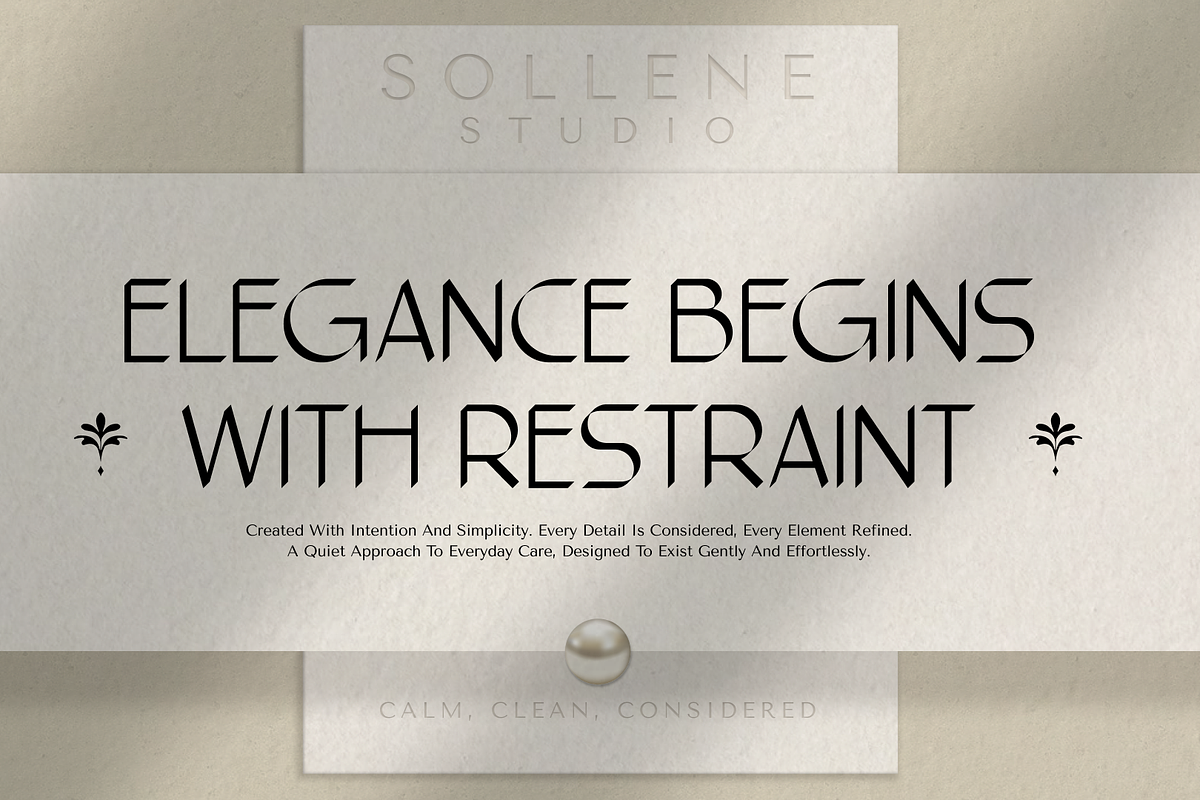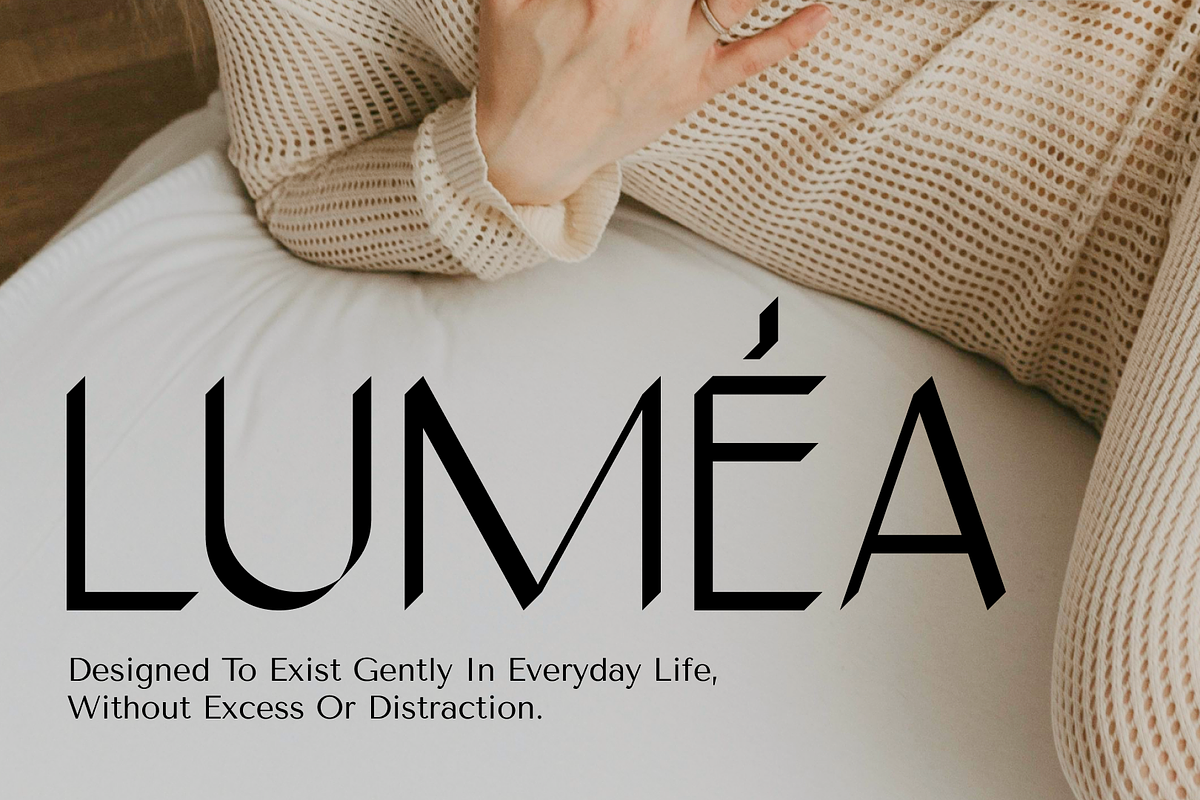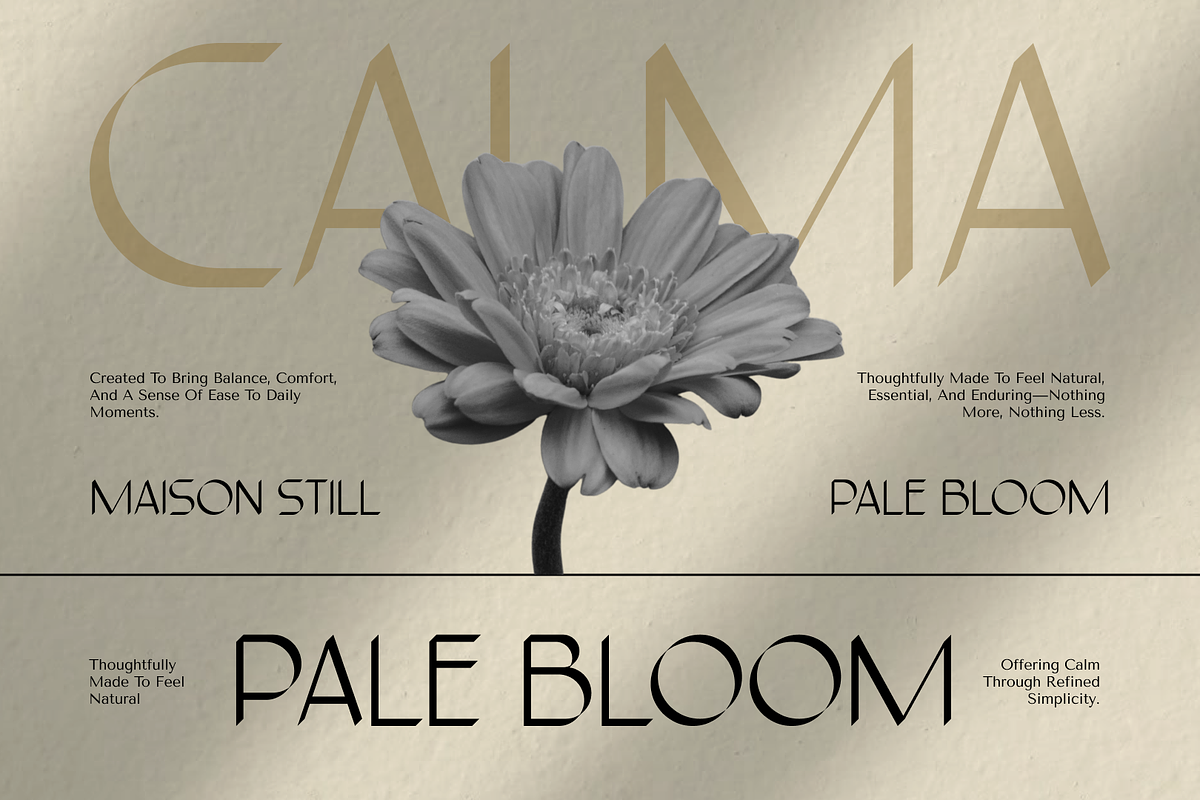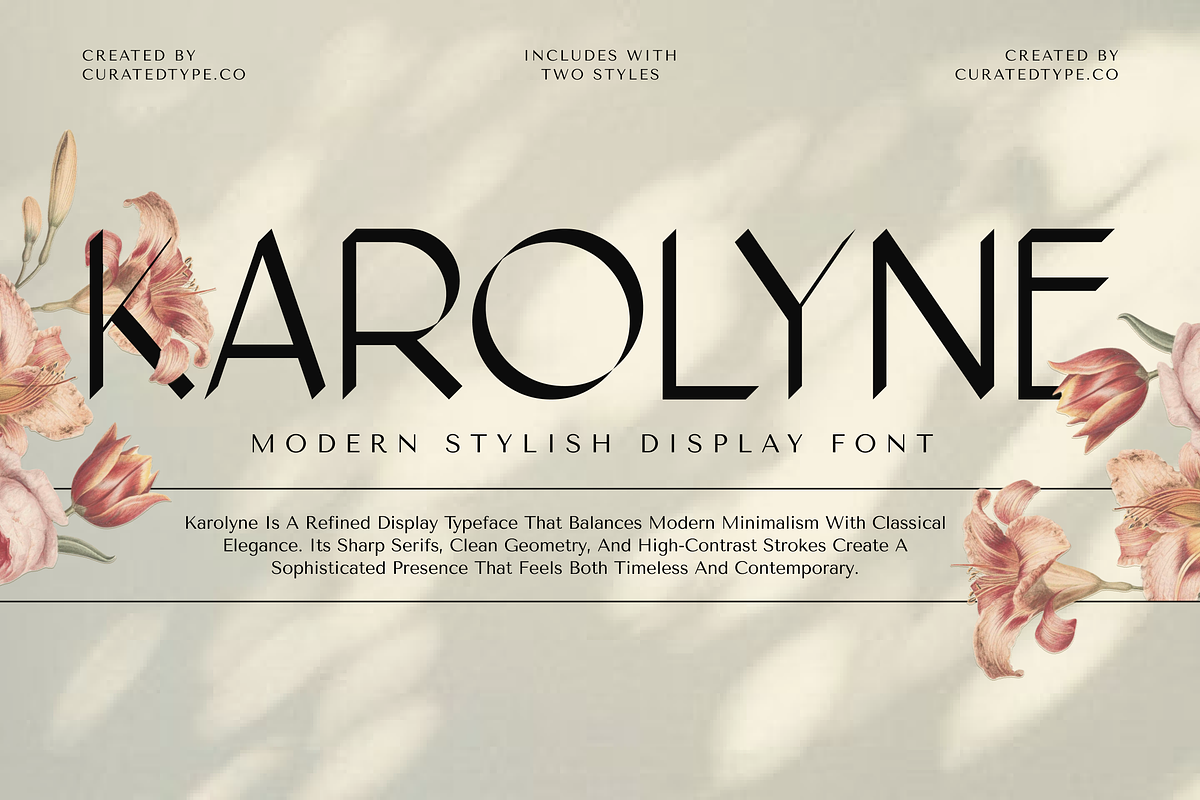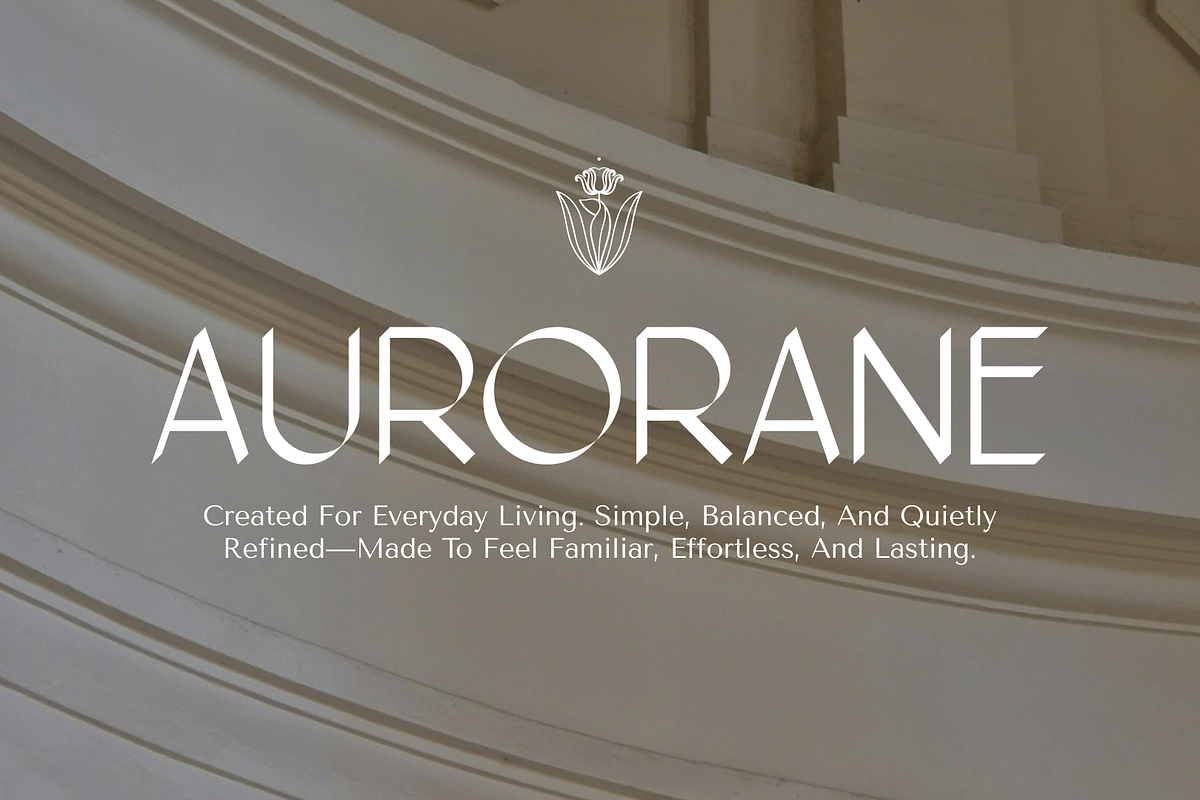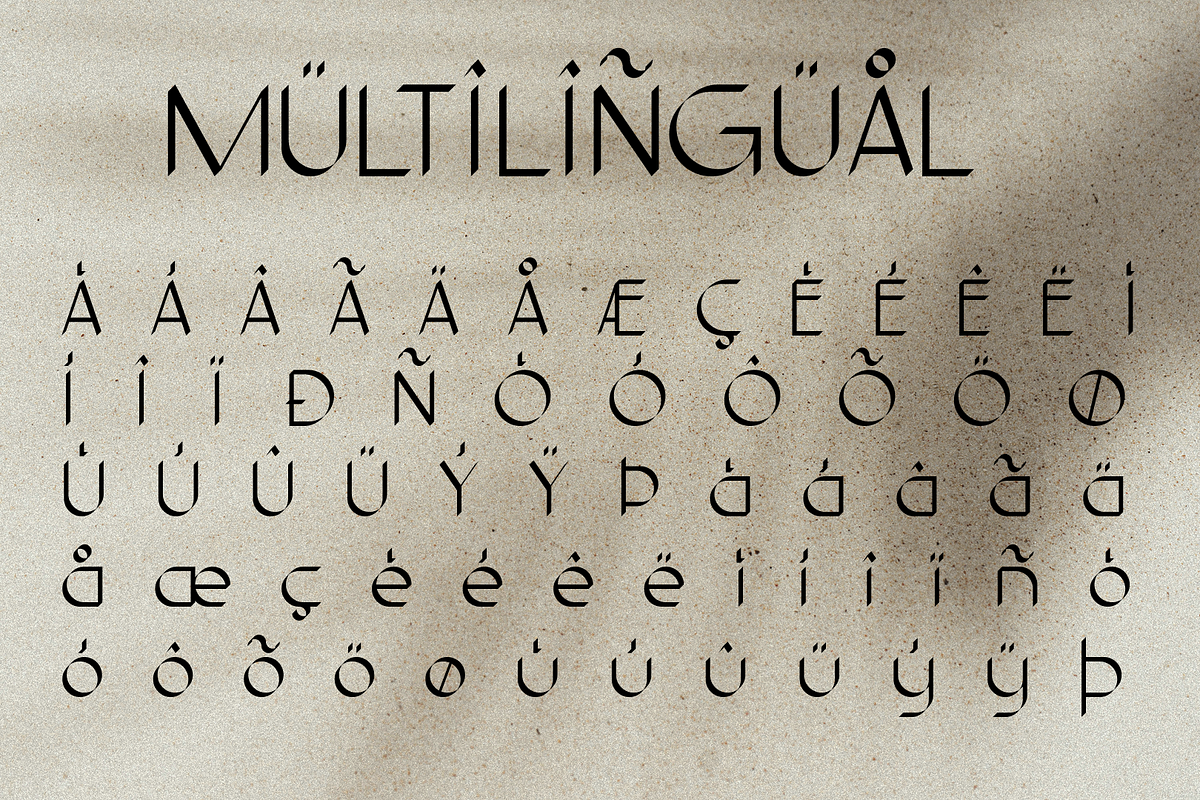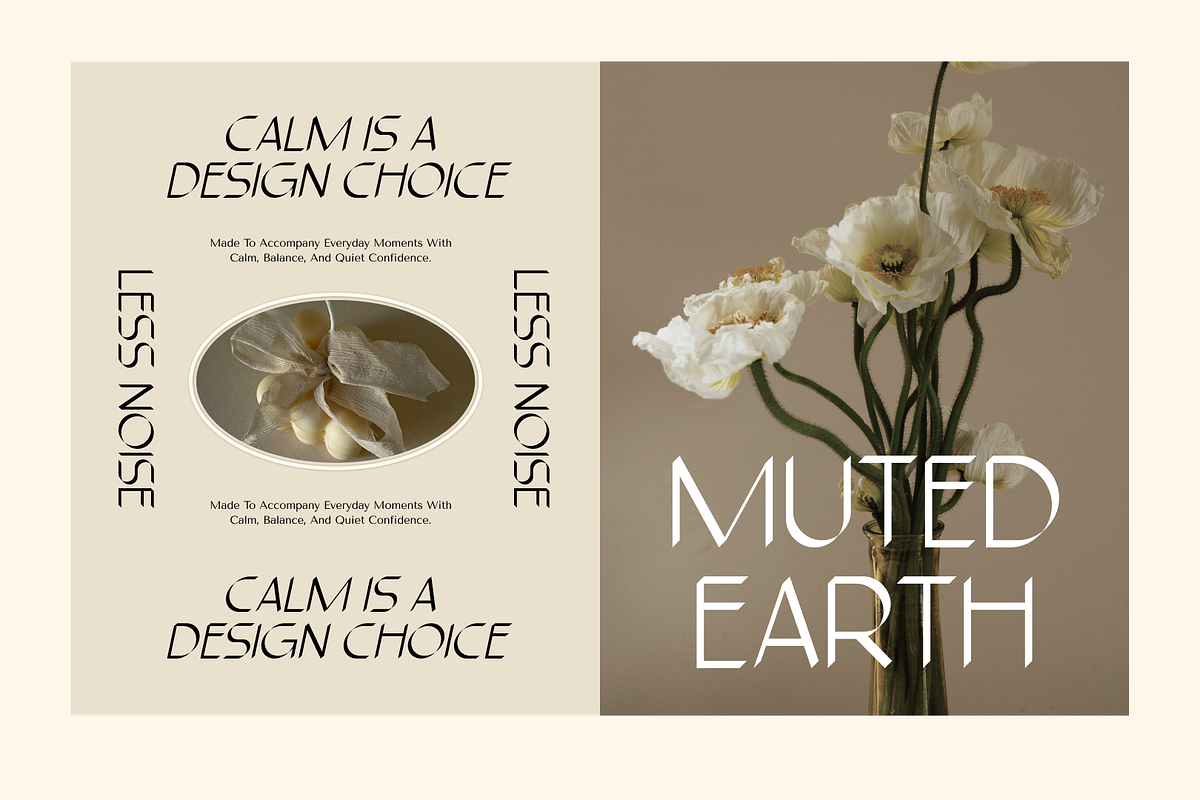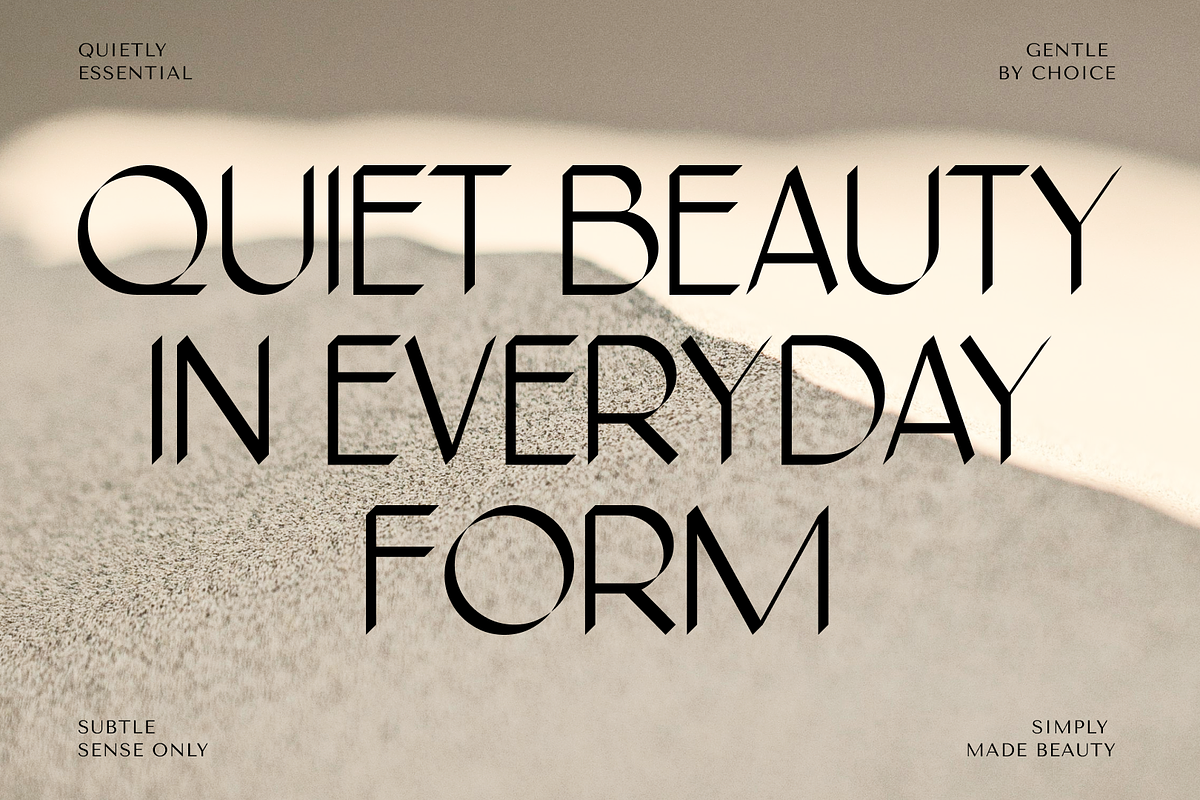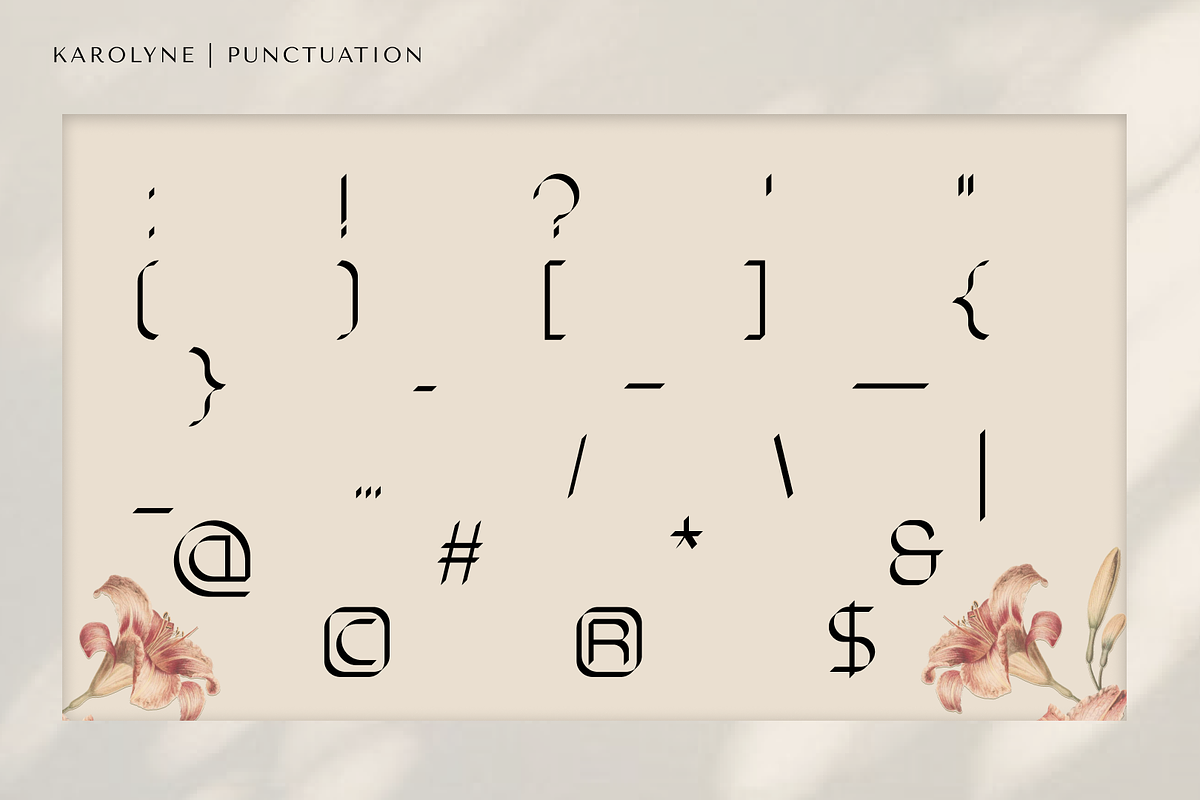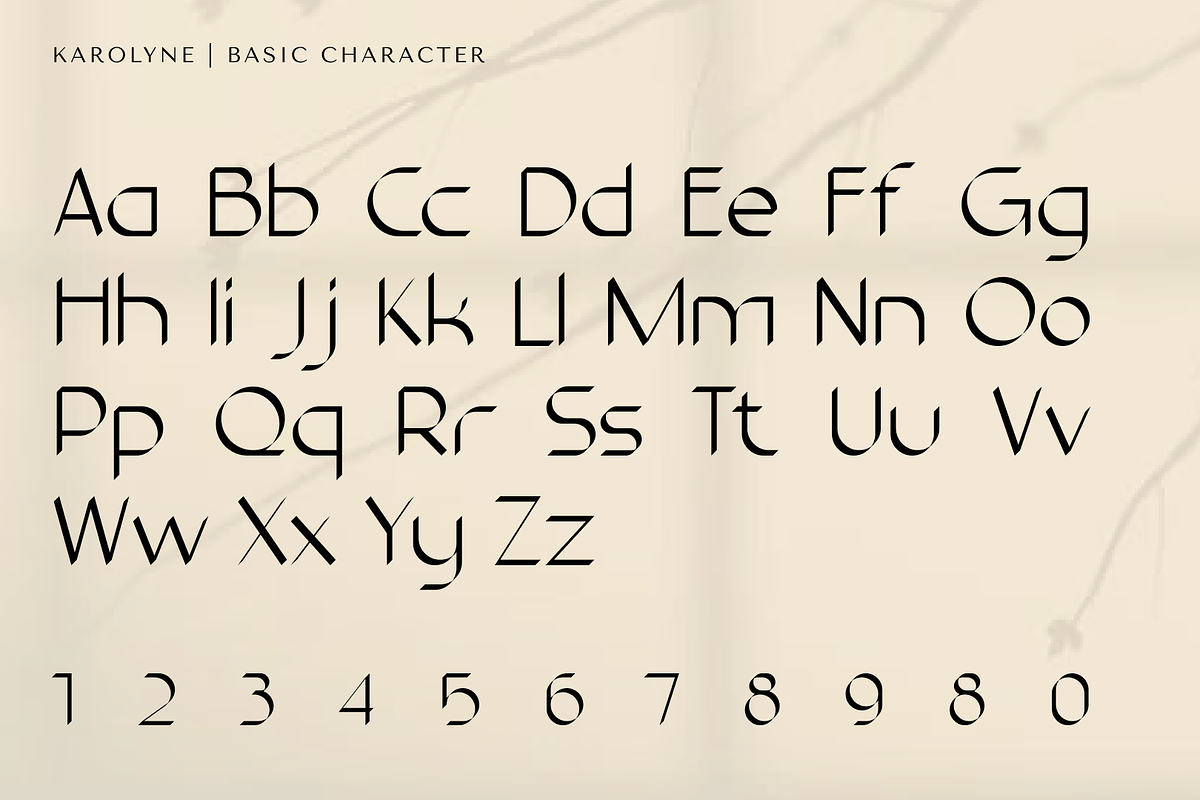
Karolyne
Karolyne is designed for the modern art director who requires typography that acts as a visual centerpiece. Moving away from the ubiquity of standard geometric sans-serifs, Karolyne introduces an "incised" personality—where stems and bowls meet in sharp, distinct cuts rather than smooth curves. This structural choice gives the typeface a sparkle and sophistication reminiscent of luxury wordmarks, while retaining the readability and versatility of a sans framework.
The font excels in high-end applications: fashion editorials, cosmetic branding, architectural signage, and gallery identities. It creates a tension between the mechanical and the artisanal, making it an ideal choice for brands that want to project precision, luxury, and forward-thinking design. It is not just a font for reading; it is a font for viewing.
- 2 Styles Font : Regular, Italic
- Standard letter A-Z and a-z
- Numeral, Symbol, and Punctuations
- OpenType Feature
- Over 500 glyphs